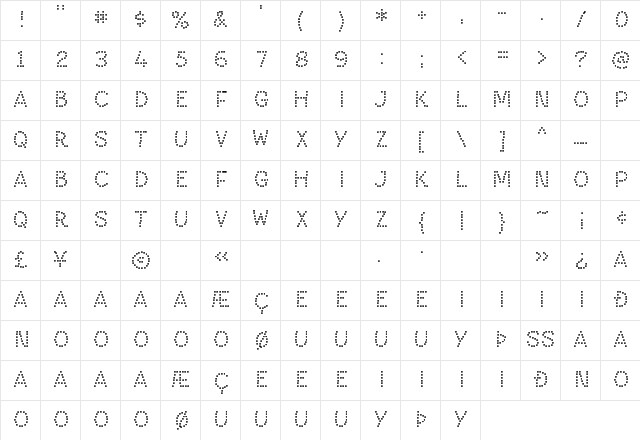
Paltime Dot
Design Context for Paltime Typeface
Paltime celebrates the constraints of early digital type, turning pixel geometry into a distinctive and immediately recognisable style.
A natural choice for retro game titles, chiptune music branding, 8-bit UI, and digital nostalgia projects.
Pro Tip: Pair Paltime with flat colour palettes and simple geometric UI elements to reinforce its digital aesthetic.